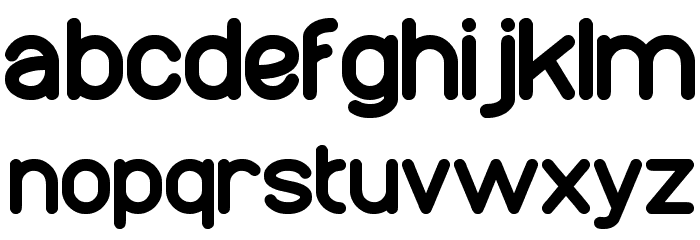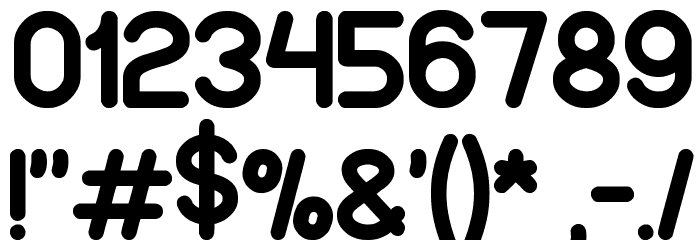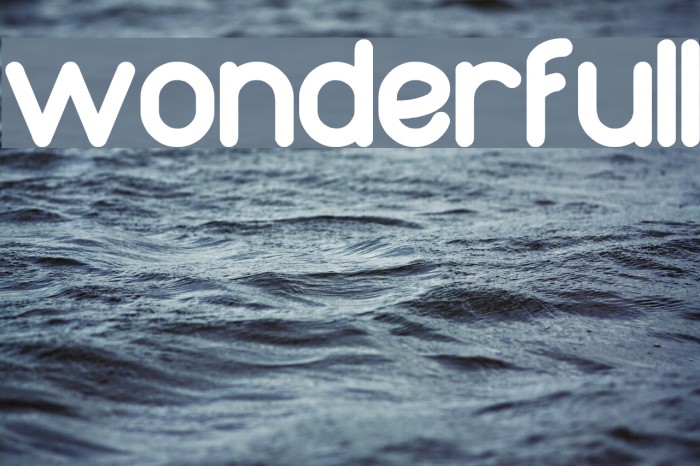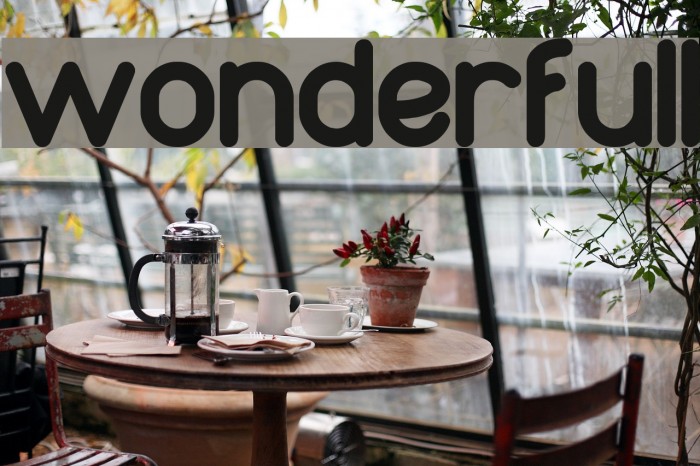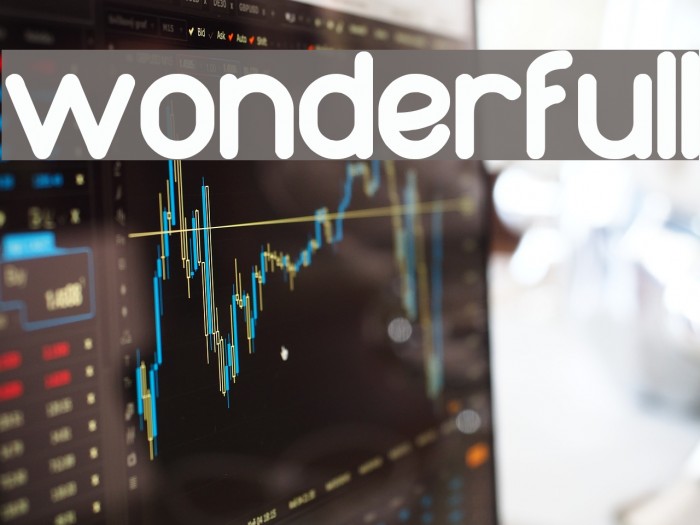
wonderfull Font
This font features a bold, rounded sans-serif style with smooth, even strokes and a modern aesthetic. The characters are uniformly thick, providing a consistent and cohesive look across both uppercase and lowercase letters. The numbers and special characters maintain the same rounded and bold characteristics, ensuring readability and visual appeal. The overall design is clean and straightforward, making it suitable for a variety of applications where clarity and impact are desired.
A bold, rounded sans-serif font with a modern and clean design.
- Proposed Projects: Ideal for branding, signage, headlines, and digital content where a modern and bold statement is needed.
- Use Case: Headlines, Logos, Signage